If you’re looking to infuse your design project with the adventurous spirit of the Wild West, choosing the right font can make all the difference. Whether you’re creating a poster for a rodeo event, designing a themed restaurant menu, or simply aiming to add a rustic charm to your social media posts, we’ve got you covered. In this article, you’ll find 18 Western-style fonts available on Canva that perfectly capture the essence of the frontier days, from bold and rugged to whimsical and handcrafted. Each of these fonts brings its own unique element to the table, making them perfect candidates for designs that aim to capture the spirit of the Wild West.
1. Alfa Slab One
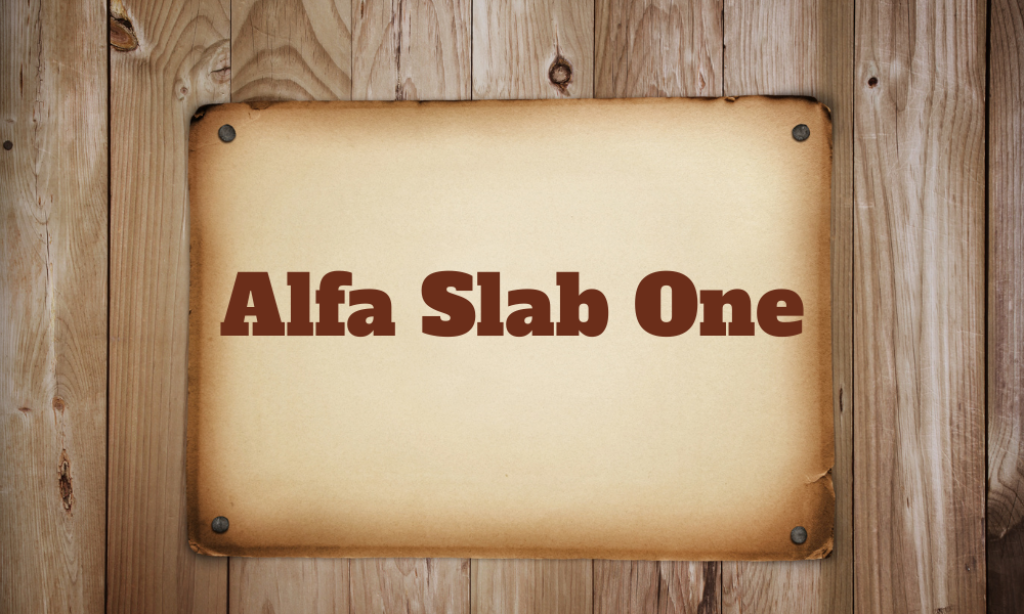
Why it is a Perfect Western font: This bold, chunky serif font delivers a modern take on the classic slab serif, making it perfect for impactful headlines that need a touch of Western flair. Its sturdy appearance resembles the bold lettering found on old Western posters.
2. Asset
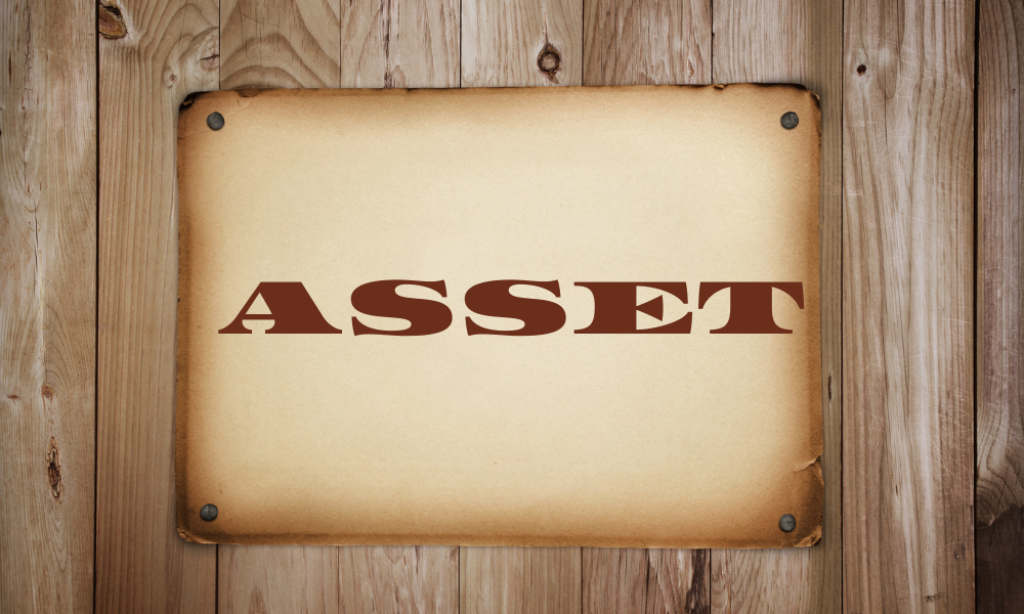
Why it is a Perfect Western font: Asset is a narrow, uppercase-only font that offers a sharp, industrial look reminiscent of the engravings on a cowboy’s revolver or the branding on livestock. It’s great for creating a strong, rugged feel.
3. Bevan
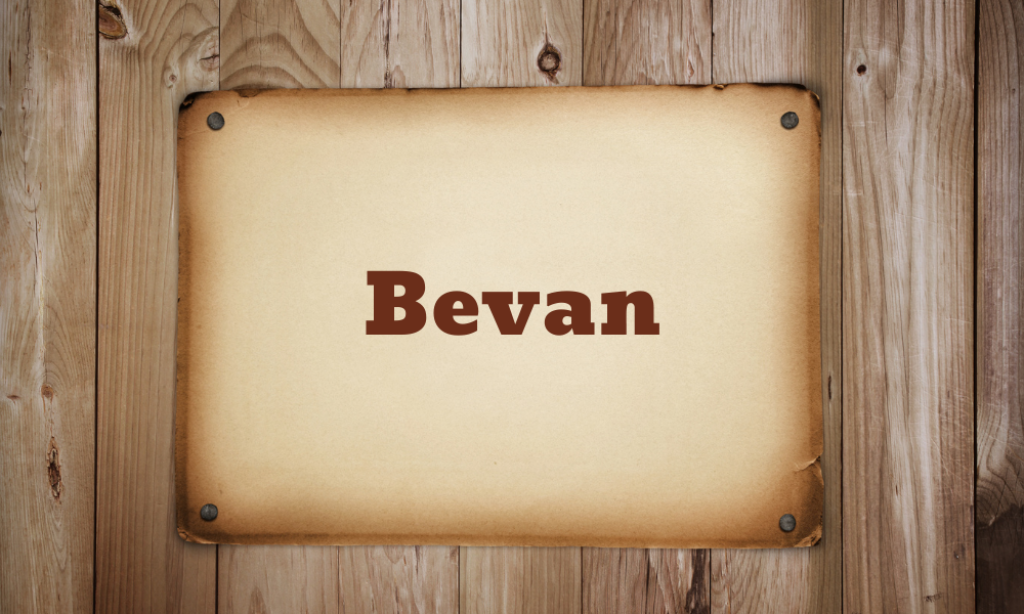
Why it is a Perfect Western font: This reinterpretation of a traditional slab serif is bolder and more condensed, giving it a contemporary edge while maintaining a Western look with its thick serifs and heavyweight, ideal for bold statements and titles.
4. Brim Narrow
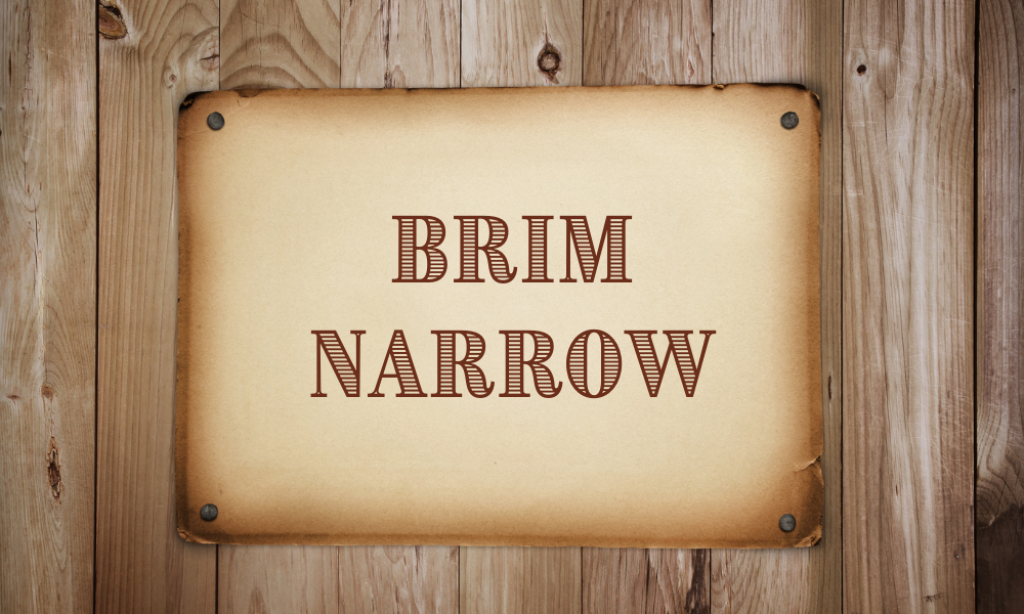
Why it is a Perfect Western font: Brim Narrow is designed with large, rounded serifs and a condensed format. This style echoes the Wild West typography used on old saloon windows and wanted posters, making it perfect for thematic event invitations or vintage-style signs.
5. Buffalo Gal
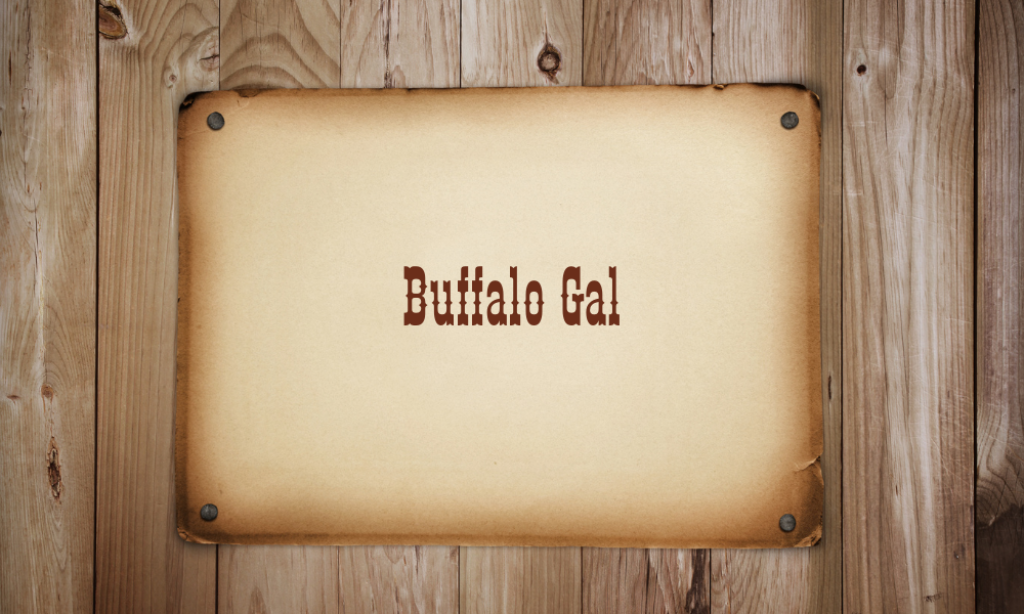
Why it is a Perfect Western font: A playful, handcrafted font that embodies the spirit of the frontier. With its rough texture and casual style, Buffalo Gal is akin to the markings a cowboy might carve into a leather saddle or wooden signpost.
6. Carlsons Slab
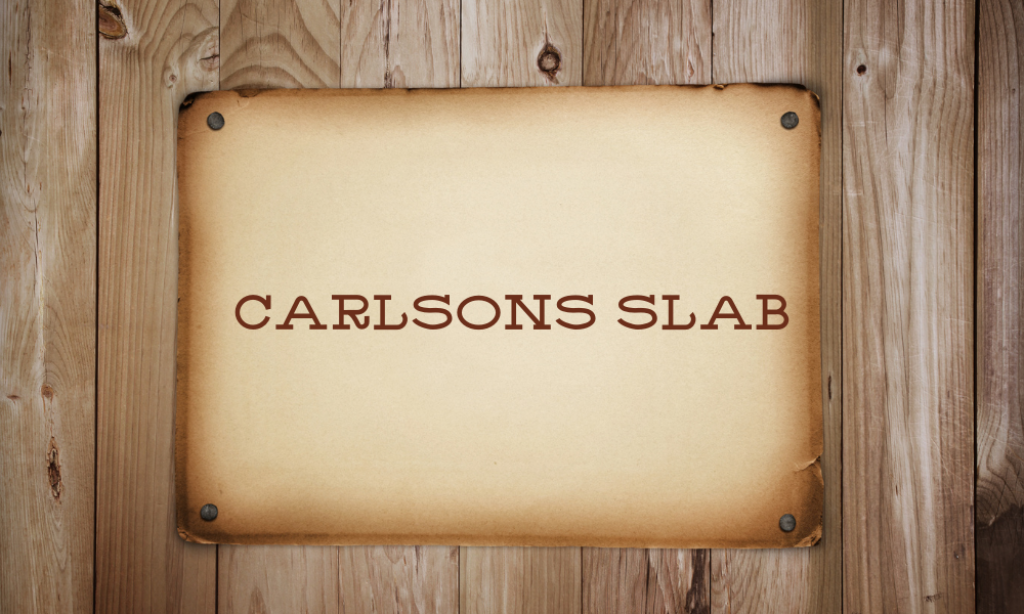
Why it is a Perfect Western font: Carlsons Slab is robust and blocky, with slab serifs that enhance its Western poster-like appeal. It conveys strength and stability, suitable for any design meant to stand out with a historical Western touch.
7. Chunk Five
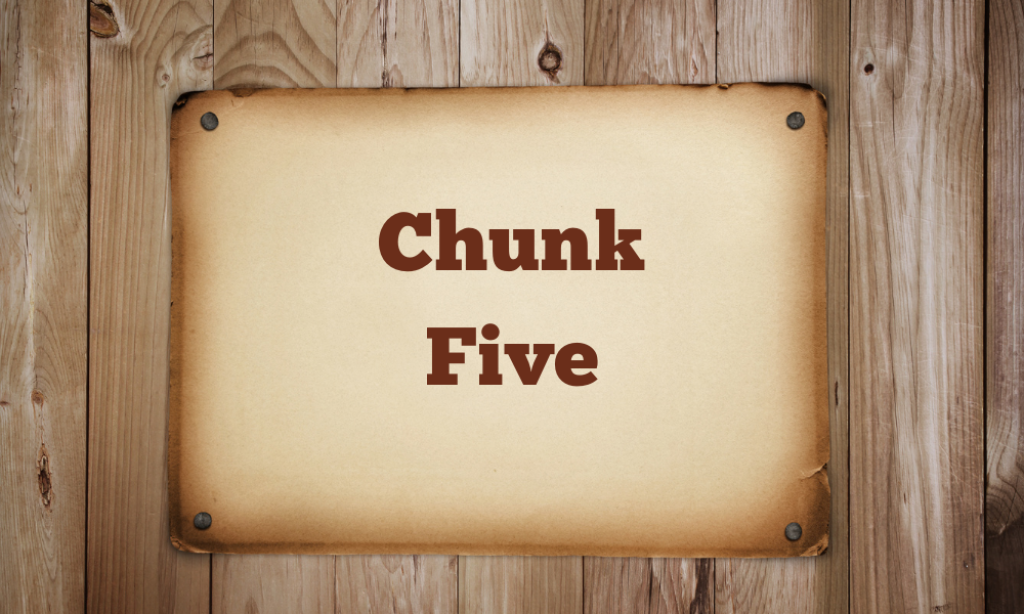
Why it is a Perfect Western font: An ultra-bold slab serif that’s all about making a big impact. Its thick, slab serifs and blocky body make it ideal for any design that requires a touch of the old American West, from book covers to thematic web headers.
8. Elders
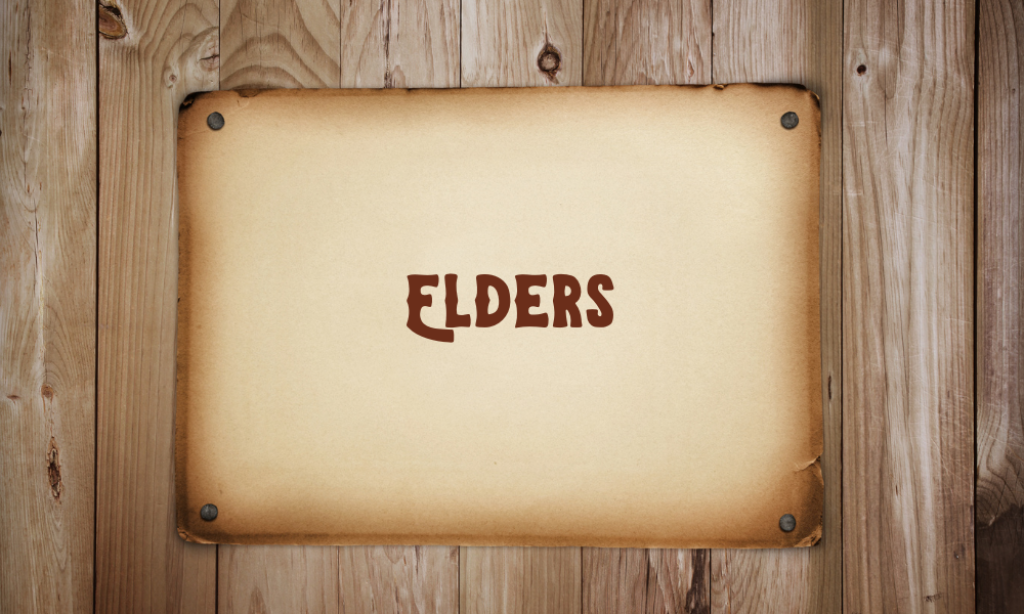
Why it is a Perfect Western font: Elders is a modern font that retains a certain historical charm, with letters that appear carved or chiseled, reminiscent of old stone inscriptions or wooden signage in frontier towns.
9. P.T. Barnum
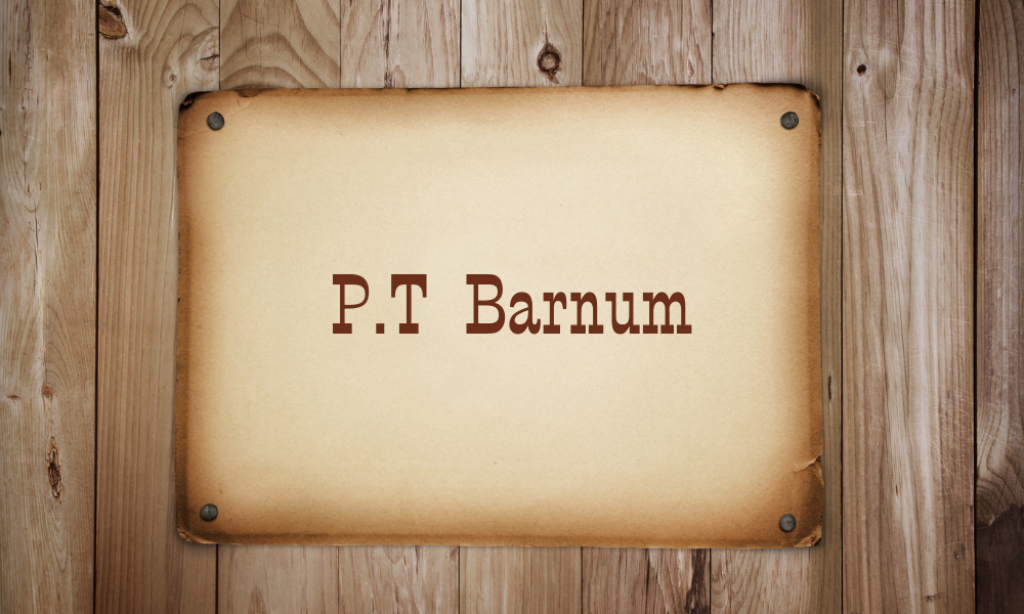
Why it is a Perfect Western font: Named after the famous showman, this font embodies the spirit of circus and Wild West show posters. It’s flamboyant and attention-grabbing, perfect for designs that need to evoke the excitement of a bygone era.
10. Riotic
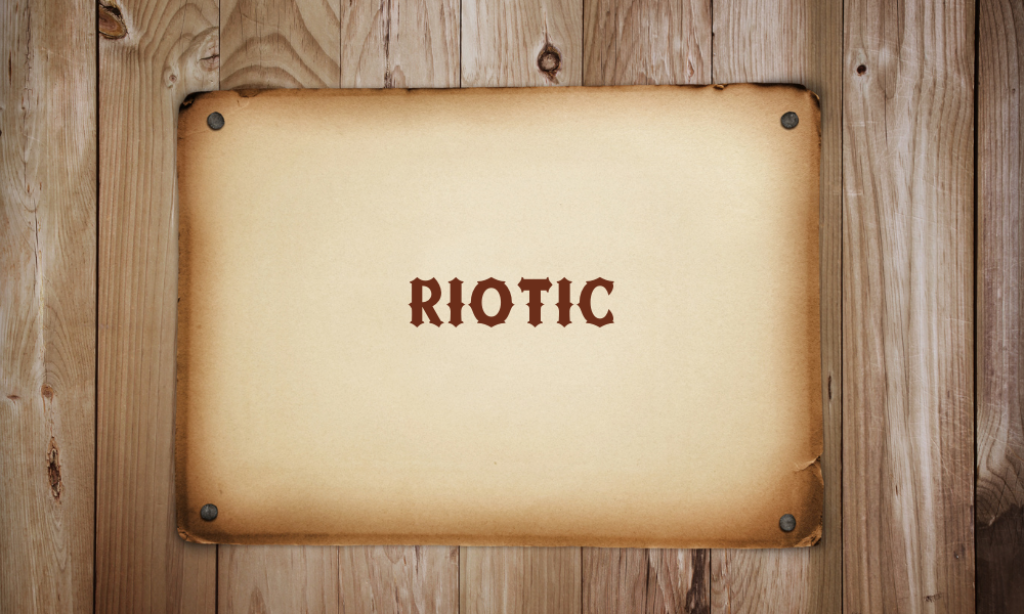
Why it is a Perfect Western font: With a gritty, eroded look, Riotic appears as though it’s been weathered by sand and wind, much like a sign hanging outside a dusty Western town. It’s ideal for adding a bit of rough-and-tumble character to any creative project.
11. Rye
Why it is a Perfect Western font: Rye is a medium-contrast design inspired by wood type. Its pointed serifs provide a connection to the American West, making it suitable for anything from drink labels to adventure stories.
12. Sancreek
Why it is a Perfect Western font: Tall and narrow, Sancreek has a look that’s reminiscent of the vertical wooden slats on old frontier buildings. It’s great for titles and headers that require a touch of old Western theatrical style.
13. Shining Bright
Why it is a Perfect Western font: This decorative font has a lighthearted, sunny feel that contrasts with more traditional, serious Western fonts. It’s perfect for modern designs that nod to the past while embracing a cheerful, contemporary vibe.
14. Silver Stone
Why it is a Perfect Western font: With a raw, rocky texture, Silver Stone looks as if it’s been hewn from the mountainside. This rugged appearance makes it a solid choice for outdoor adventure brands or historical Western narratives.
15. Distillery Strong
Why it is a Perfect Western font: The name says it all; this font has a bold, commanding presence. Its heavy, slab serif construction makes it ideal for impactful Western-themed advertising or branding.
16. TS Country
Why it is a Perfect Western font: This font features whimsical, irregular letterforms that mimic handmade signage from a country store or local fair, bringing a personalized touch to any design.
17. Vast Shadow
Why it is a Perfect Western font: Vast Shadow has a 3D shadow effect that makes text pop as if it’s leaping off the page. This feature is reminiscent of old Western signage, which often used shadowing to stand out from the background.
18. Weston
Why it is a Perfect Western font: Weston combines modern and classic typography elements, creating a versatile font that works well in both contemporary and Western-style designs. Its rounded yet sturdy serifs convey a sense of adventure and hardiness.